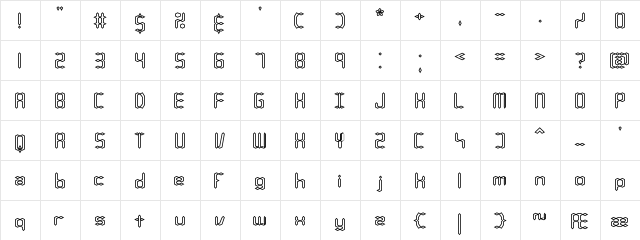
Compliant Confuse 1o BRK Normal
| Foundry | ƎIGMA FONTS |
| Designer | ƎIGMA FONTS - Brian Kent |
Design Context for Compliant Confuse 1o BRK Typeface
Compliant Confuse 1o BRK takes a measured approach to typography — its balanced proportions and neutral character make it a reliable workhorse for both digital and print work.